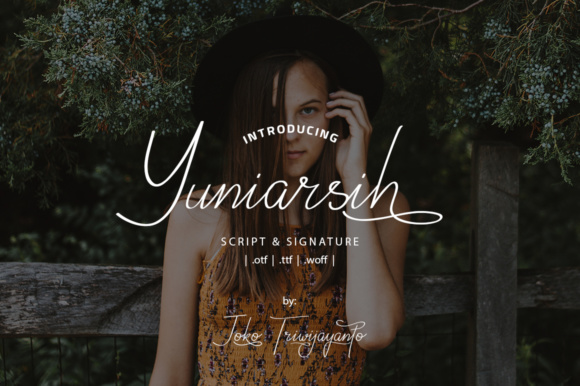
Yuniarsih Script Font
About Yuniarsih Script Font
The Yuniarsih Script is a stylish calligraphy font. It has clean lines and a varying baseline which will give your design a classic and interesting touch. It can be used for various purposes such as: headings, logos, posters, t-shirts and much more!